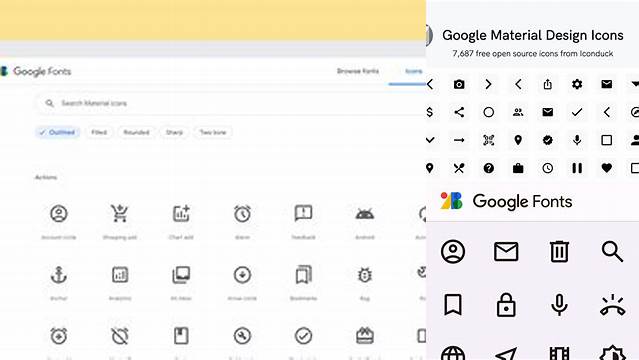
Google Fonts: Material Icons CSS - Quick Load Guide
Hey guys! Ever wanted to spice up your website with some cool icons but felt lost in the sea of options? Well, you've come to the right place! Today, we're diving deep into Google Fonts Material Icons CSS, your one-stop solution for adding stylish and functional icons to your web projects. Forget about clunky image files and complicated setups; with Google Fonts, it's all about simplicity and speed. Let's get started!
Understanding Google Fonts Material Icons
Before we jump into the how-to, let's understand what exactly Google Fonts Material Icons CSS is. It's basically a library of icons designed by Google, available for free, and easily accessible through a simple CSS link. These icons are scalable, meaning they look great on any screen size, and you can customize them with CSS to match your website's theme. They are provided as a web font and are designed according to Google's Material Design principles, offering a consistent and modern look across different platforms. The key advantage here is the ease of integration; you don't need to download any files or worry about compatibility issues. Everything is handled through Google's CDN (Content Delivery Network), ensuring fast loading times and reliable performance.
Benefits of Using Material Icons
Why should you choose Material Icons over other icon libraries? Well, the benefits are numerous. First off, they're free! You don't have to worry about licensing fees or hidden costs. Secondly, they're incredibly easy to use. A simple CSS link and you're good to go. Thirdly, they're versatile. With a wide range of icons to choose from, you'll find something for every project. Additionally, Material Icons are optimized for web use, ensuring they load quickly and don't slow down your website. They also support various styling options, allowing you to change their size, color, and shadow using CSS. Finally, because they're hosted on Google's CDN, you can be confident that they'll be available and fast, no matter where your users are located.
How to Embed Material Icons in Your Website
Using Material Icons with HTML
Now that you've embedded the Material Icons stylesheet, let's see how to use them in your HTML. To display an icon, you'll use the <span>
tag with the material-icons
class. The content of the <span>
tag should be the name of the icon you want to display. For example, if you want to display the "search" icon, you would use the following code:
This will display the search icon on your webpage. You can replace "search" with any other icon name from the Material Icons library. Remember to always use the material-icons
class to ensure the icon is displayed correctly. You can also use other HTML elements like <i>
but <span>
is usually more semantic and flexible for styling.
Styling Material Icons with CSS
One of the best things about Material Icons is that you can style them using CSS. You can change their size, color, and even add shadows. For example, to change the size of an icon, you can use the font-size
property. To change the color, you can use the color
property. Here's an example:
You can also use CSS classes to apply different styles to different icons. For example, you could create a class for primary icons and another class for secondary icons. This allows you to create a consistent and visually appealing design across your website. Additionally, you can use CSS pseudo-elements like :hover
to create interactive effects when users hover over the icons.
Finding the Right Material Icon
With hundreds of Material Icons available, finding the right one for your project can be a bit overwhelming. Thankfully, Google provides a comprehensive website where you can browse and search for icons. Simply visit the Material Icons website, and you'll find a search bar where you can type in keywords related to the icon you're looking for. The website also allows you to filter icons by category, making it easier to narrow down your search. Once you find the icon you want, simply copy its name and use it in your HTML code.
Material Icons for Different Platforms
Material Icons aren't just for websites; they can also be used in mobile apps and desktop applications. Google provides different versions of the icons for different platforms, ensuring they look great on any device. For example, for Android apps, you can use the Material Icons font directly in your layouts. For iOS apps, you can use the Material Icons as vector images. The key is to choose the appropriate format for your target platform to ensure optimal performance and visual quality. Regardless of the platform, the underlying principle remains the same: use the icon's name to reference it in your code.
Conclusion: Material Icons - Your Go-To Icon Solution
So there you have it, folks! Google Fonts Material Icons CSS is a fantastic tool for adding stylish and functional icons to your web projects. It's free, easy to use, and versatile. Whether you're building a website, a mobile app, or a desktop application, Material Icons can help you create a visually appealing and user-friendly experience. So go ahead and give them a try. You won't be disappointed!